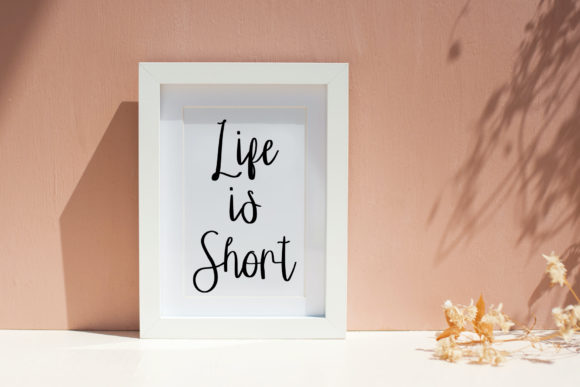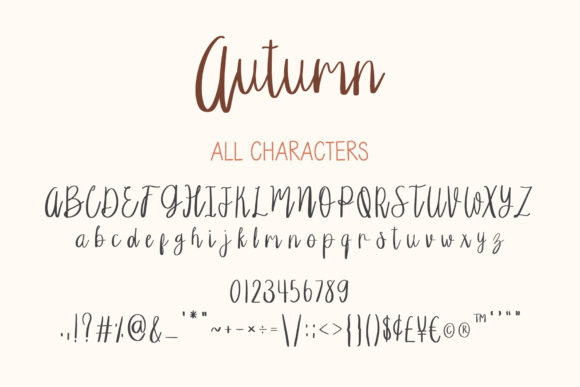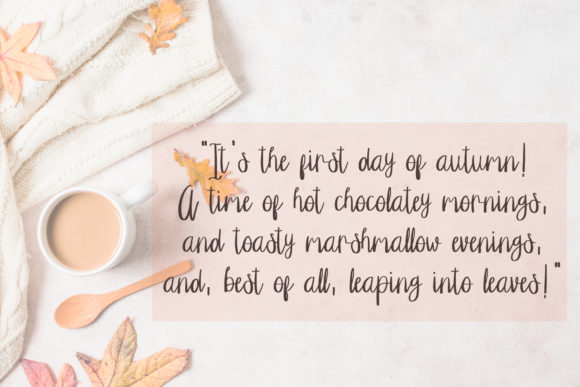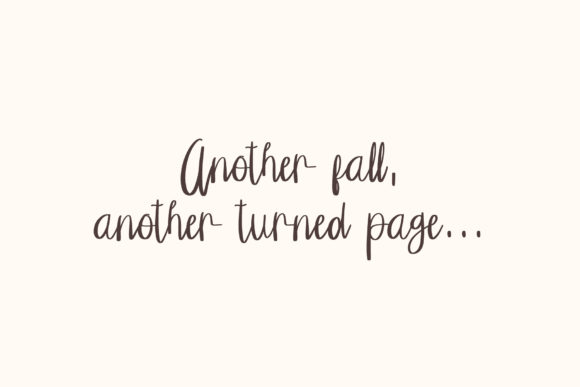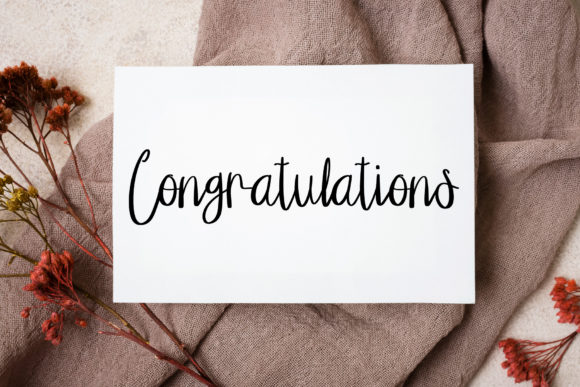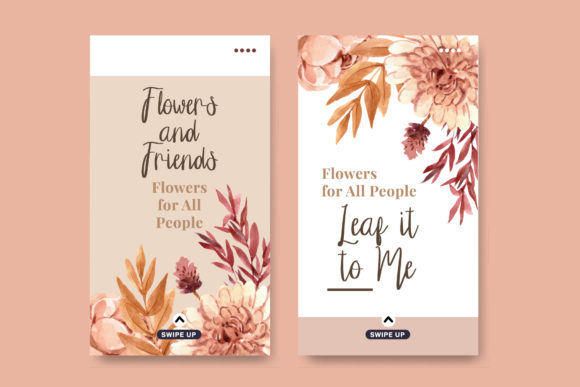
The Perfect Fall Font: Discover the Elegance of Autumn
I’ll never forget the design project that led me to discover the Autumn font. I was working on a logo for a cozy coffee shop, and I wanted a font that captured the warmth and elegance of the fall season. After hours of scrolling through font libraries, I stumbled upon Autumn – a handwritten font with a modern and elegant feel that instantly won my heart. If you’re a designer, crafter, or creative hobbyist looking for a versatile font for your projects, you’re in luck! In this article, we’ll dive into the world of Autumn font and explore its features, uses, and alternatives.
An Honest Review of Autumn Font
What I Love About Autumn Font
- ✨ Modern and elegant feel: Autumn font has a unique blend of classic and contemporary styles that makes it perfect for a wide range of projects.
- ✅ Highly legible: The font is clear and easy to read, even at small sizes, making it ideal for body text and captions.
- 💫 Versatile: Autumn font works beautifully for logos, branding, social media graphics, and crafty DIY projects.
While Autumn font is an excellent choice, there are a few things to keep in mind:
- 🤔 Limited character set: Autumn font might not have an extensive character set, which could limit its use for certain languages or special characters.
- ⚠️ Not suitable for very small text: While the font is legible, it may not be the best choice for very small text, such as footnotes or captions.
A Practical Guide to Using Autumn Font
- Experiment with OpenType features, such as stylistic alternates and glyphs, to add visual interest to your text.
The Story Behind Autumn Font
Autumn font was designed with the intention of capturing the warmth and elegance of the fall season. The designer aimed to create a font that was both modern and timeless, with a unique blend of classic and contemporary styles. The result is a versatile font that’s perfect for a wide range of projects.
| What type of projects is Autumn font best suited for? | Autumn font is perfect for logos, branding, social media graphics, and crafty DIY projects. |
| Is Autumn font easy to read? | Yes, Autumn font is highly legible, even at small sizes. |